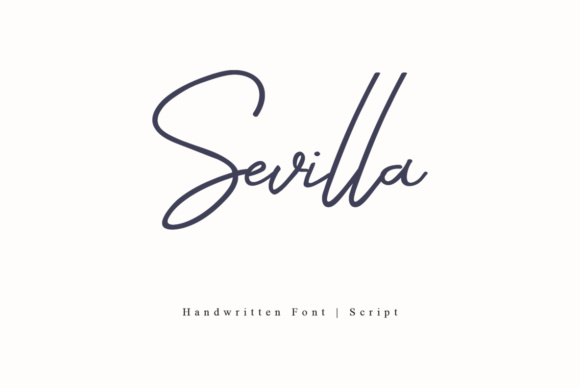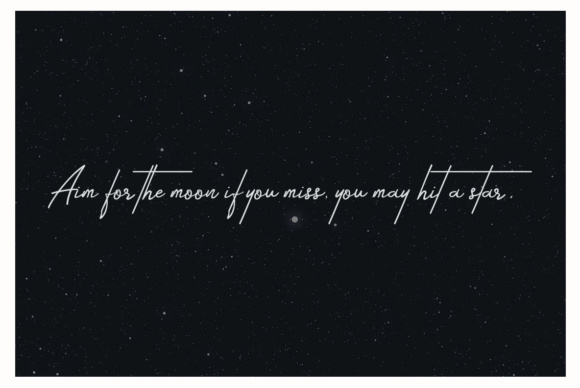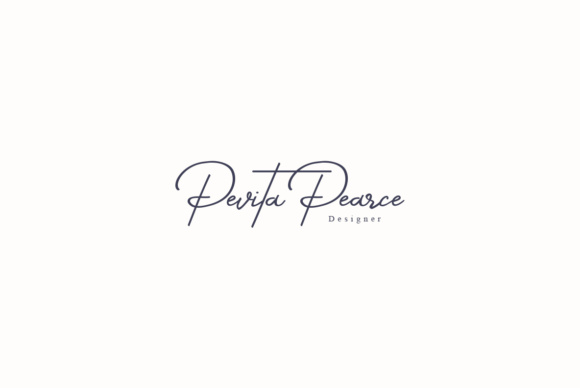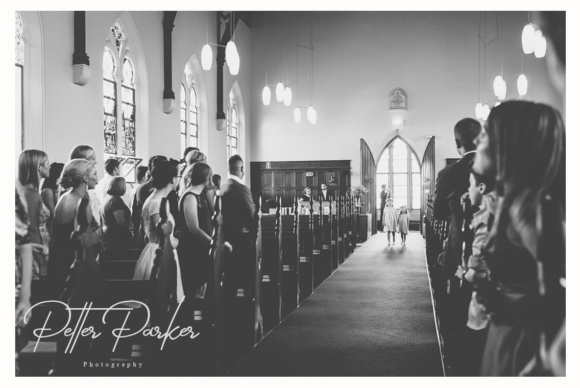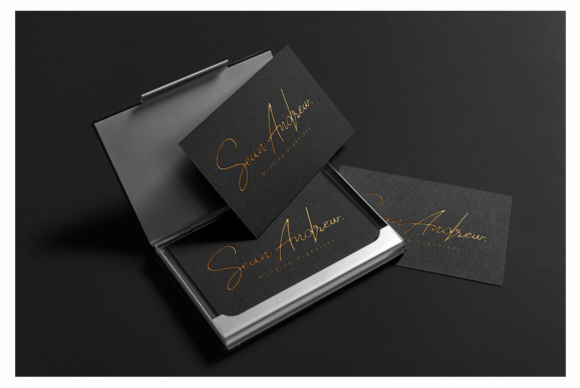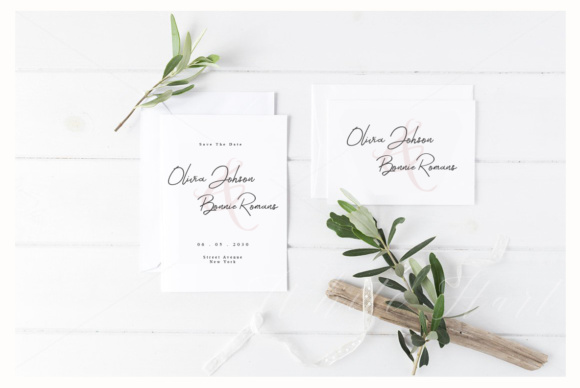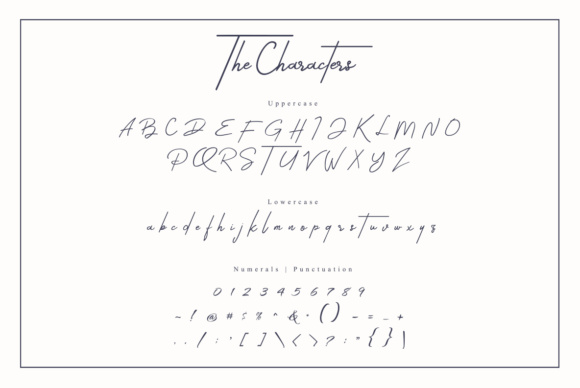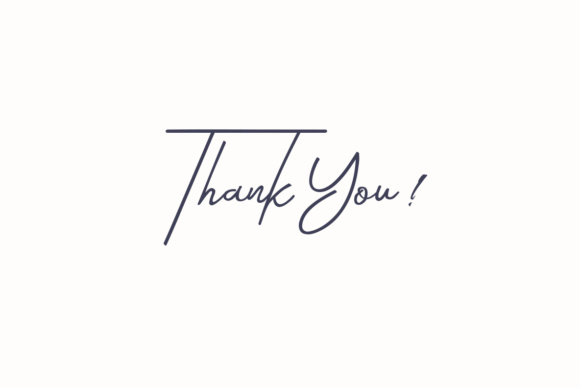
HomeScript FontsSevilla Font Script Fonts Sevilla Font FacebookXPinterestWhatsApp Sevilla Font Poster 2 Sevilla Font Poster 3 Sevilla Font Poster 4 Sevilla Font Poster 5 Sevilla Font Poster 6 Sevilla Font Poster 7 Sevilla Font Poster 8 About Sevilla Font Sevilla is a clean signature-style handwritten font. It’s elegant, modern and fashionable! DOWNLOAD ON CREATIVE FABRICAThis font is sold and delivered by Creative Fabrica. Font Canyon may earn a commission if you buy through this link. People also explored Filmotype Panama Buttercup Font Sweet Magolina Neighborhood Font Fakedes Kadupul Flowers Font ZP Chicken Hawk Font Moegham Font Romantic Font 318 0 TagsSevilla Font Previous articlePresident FontNext articleThe Sunset Font LEAVE A REPLY Cancel reply Comment: Please enter your comment! Name:* Please enter your name here Email:* You have entered an incorrect email address! Please enter your email address here Website: Save my name, email, and website in this browser for the next time I comment. Personal Use Free Talking on Personal Use Free Read more about this font Panaroe Personal Use Free Read more about this font Ardilla Font Personal Use Free Read more about this font Super Discount Personal Use Free Read more about this font BLOG Top 10 Handwritten Fonts That Elevate Your Designs Top 10 Handwritten Fonts That Will Elevate Your Designs Handwritten fonts bring a warm, personal touch to every creative project. Whether you're designing logos, invitations,... Fonts That Capture the Spirit of New York City Best Fonts for YouTube Videos: Make Your Thumbnails Stand Out Free vs Paid Fonts: Why Investing in Premium Fonts Is Worth It